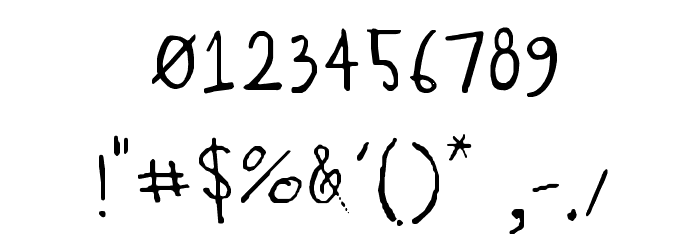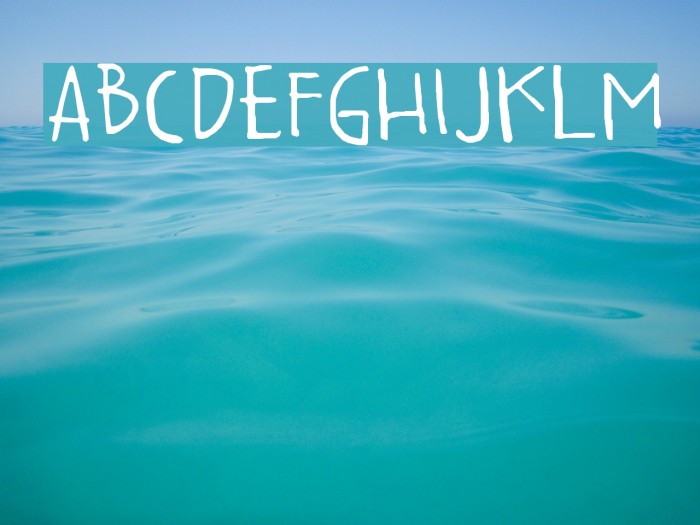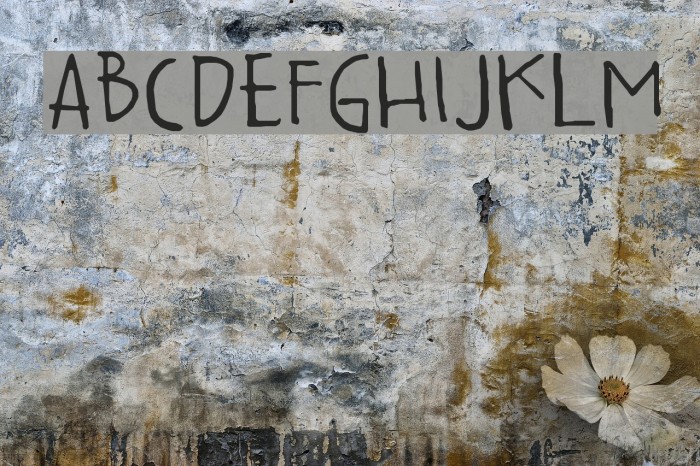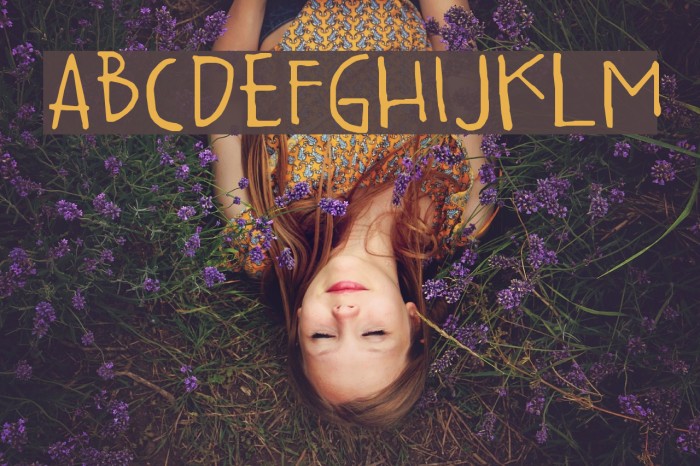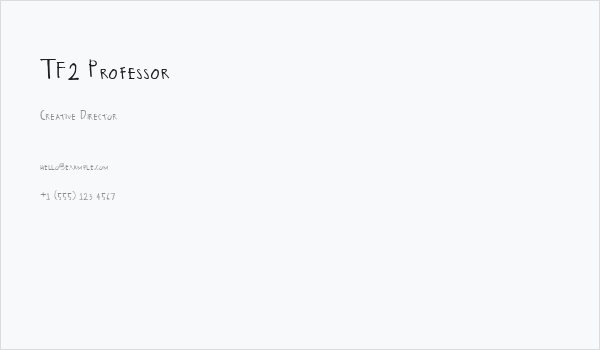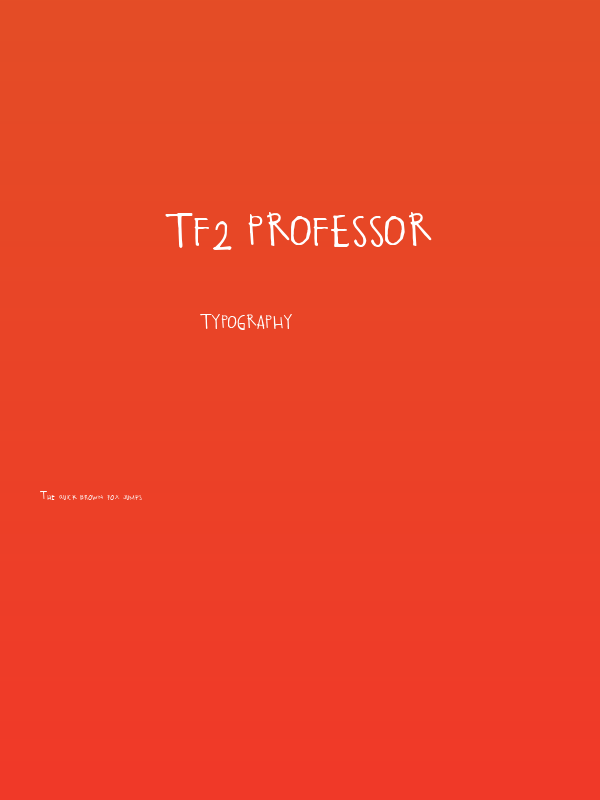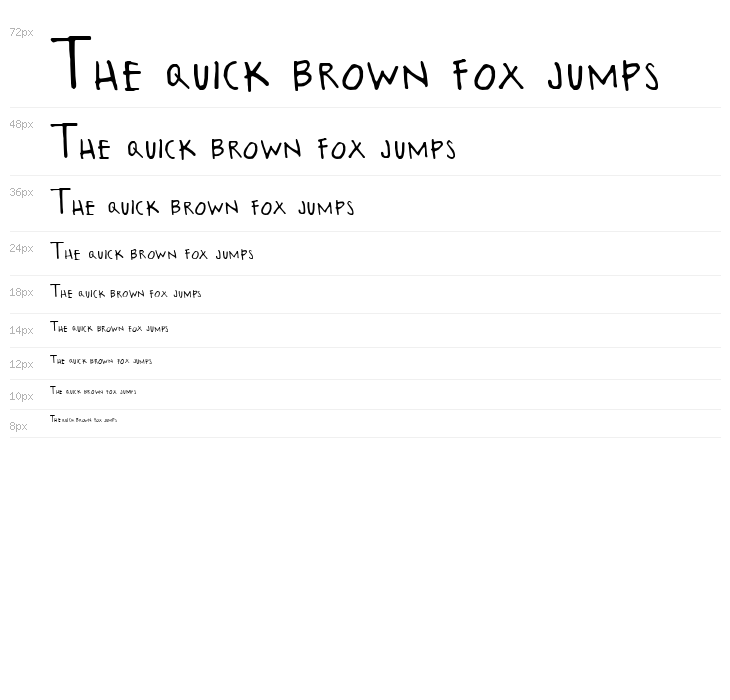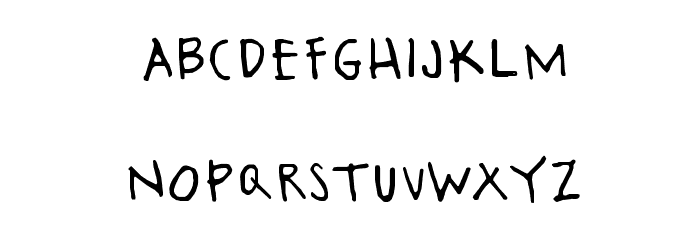
TF2 Professor Font
TF2 Professor Description
This font features a playful and informal handwritten style, characterized by its uneven strokes and slightly irregular letterforms. The uppercase letters are bold and prominent, while the lowercase letters maintain a consistent flow with a casual appearance. Numbers and special characters follow the same whimsical design, adding to the font's overall charm. The font's unique personality makes it suitable for projects that require a touch of creativity and individuality. Its distinct style can bring a sense of fun and approachability to any design.
| Proposed Projects | Ideal for children's books, creative posters, casual invitations, and playful branding. |